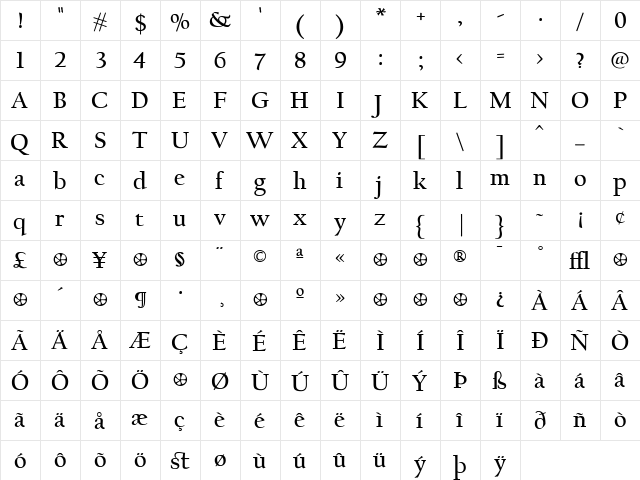
FBCalifornian Bold
| Copyright | Copr.1994, The Font Bureau, Inc. Based on Frederic W. Goudy s University of California Old Style. |
Design Context for FBCalifornian Typeface
FBCalifornian is a composed and adaptable typeface that performs quietly and consistently across a wide range of design contexts. The heavy weight commands attention and anchors typographic hierarchies.